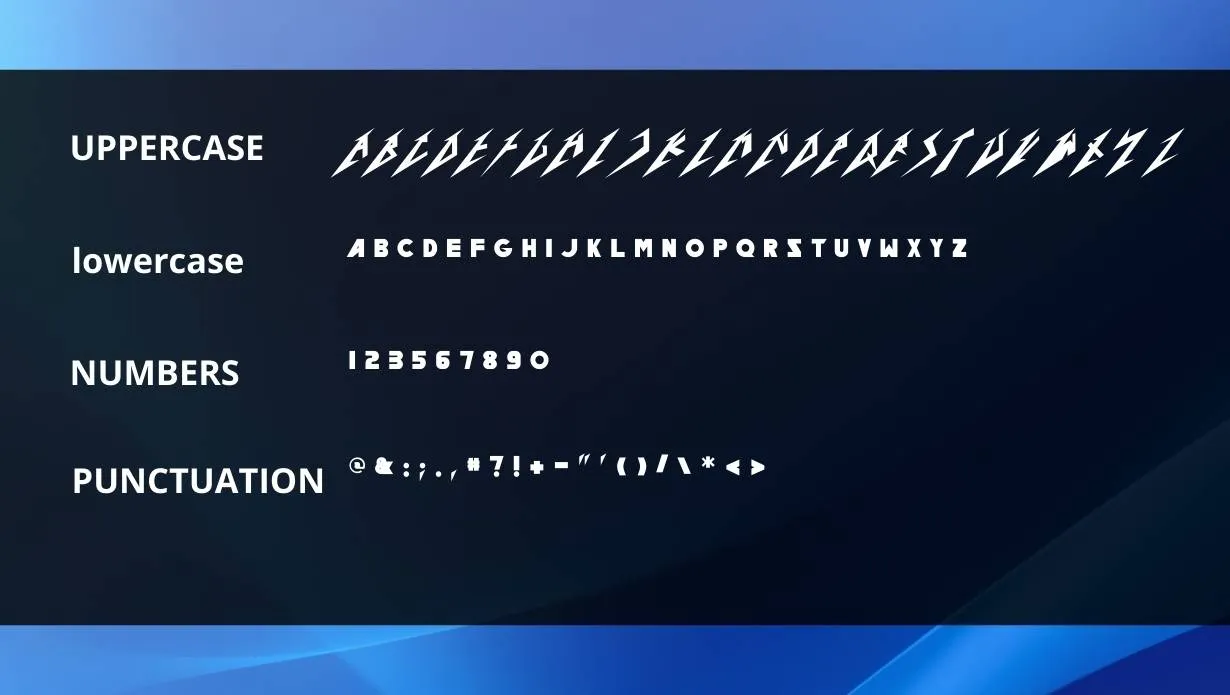
Metallica Font is a font inspired by the band Metallica. It is a sans serif font with a strong metal influence. The font was created by Jens Kegelmann and is available in two weights, light and bold.
Whether you’re a diehard Metallica fan or just looking for a Typeface with attitude, Metallica Typeface is a perfect choice.
You can also utilize the typeface in your display designs and pair it with other typefaces like acme font which is much similar to this and has a pairing personality.
View of Metallica Font
| Name | Metallica Font |
| Designer | Friedrich Peter |
| Category | Fancy |